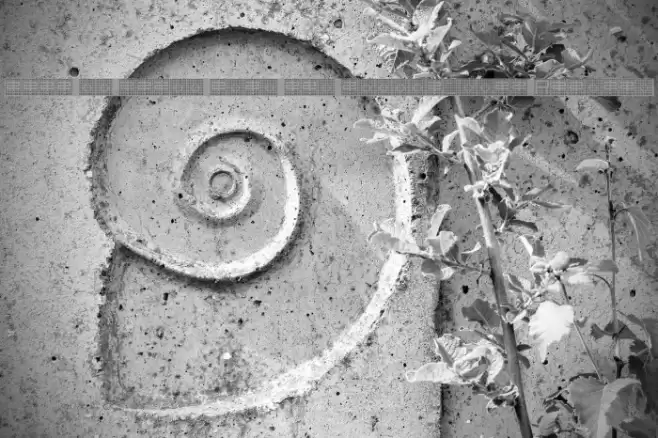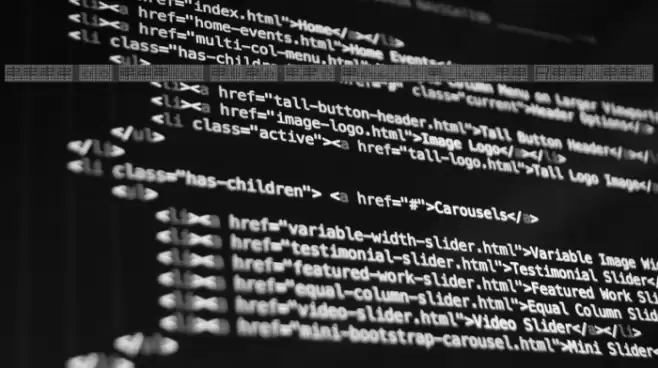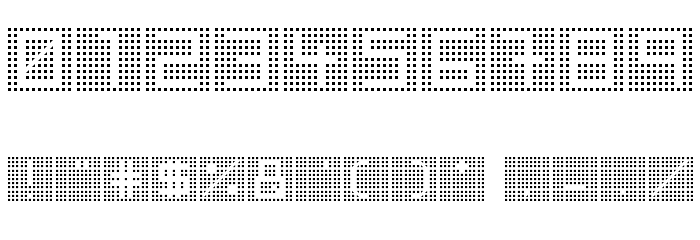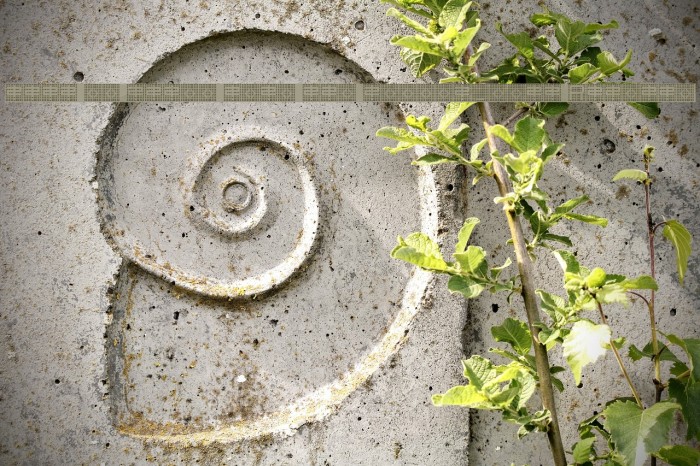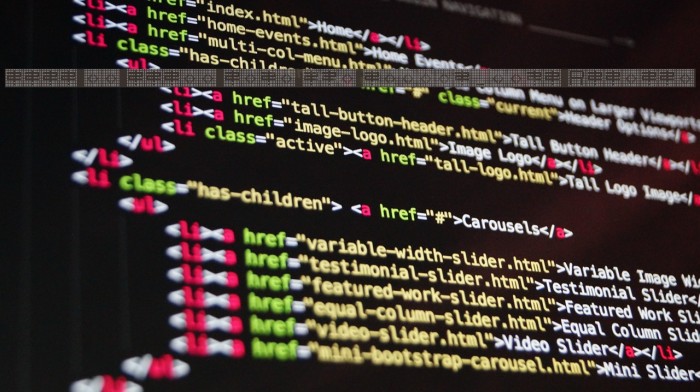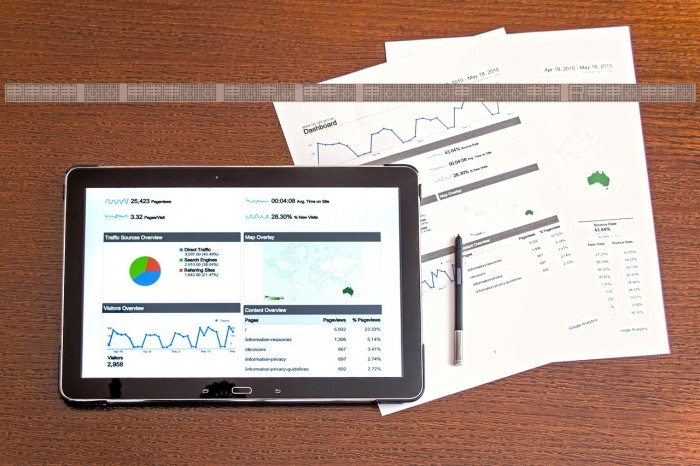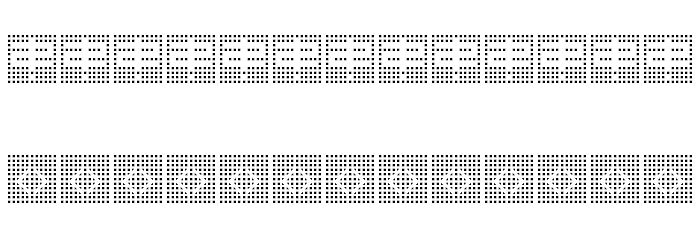
This font features a unique dot matrix design, creating characters with a grid of small, evenly spaced dots. Each letter and number is constructed within a square boundary, giving a uniform and structured appearance. The style is reminiscent of digital displays or LED screens, making it ideal for modern, tech-inspired projects. The characters are bold and clear, ensuring readability even with the unconventional design. This font stands out with its geometric precision and futuristic vibe.
A dot matrix font with a digital, tech-inspired aesthetic from Uncategorized fonts.
- Proposed Projects: Ideal for digital displays, tech-themed posters, futuristic branding, and electronic device interfaces.